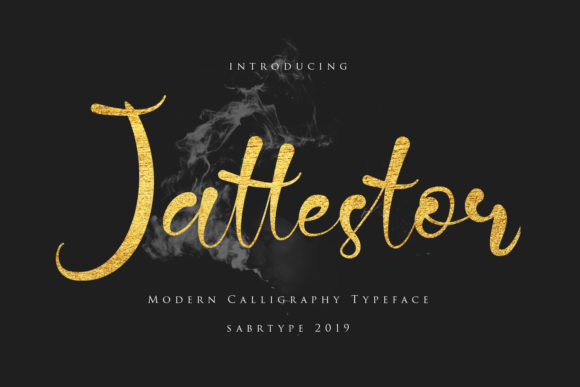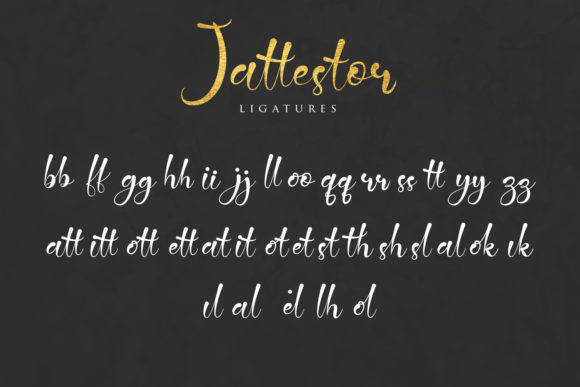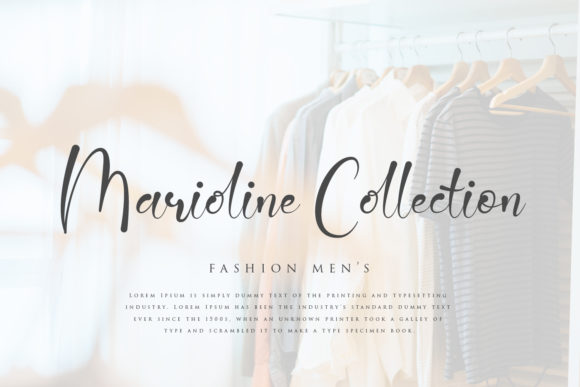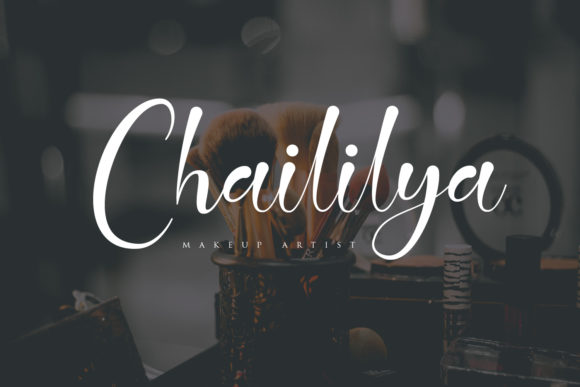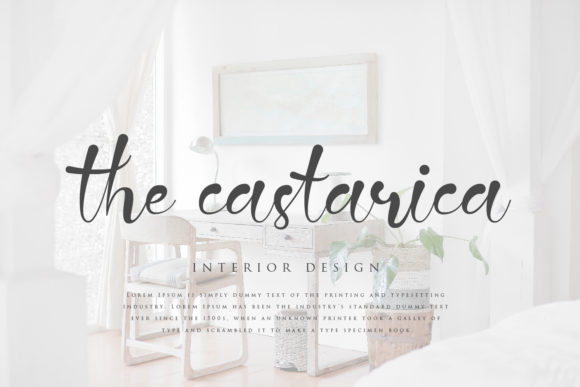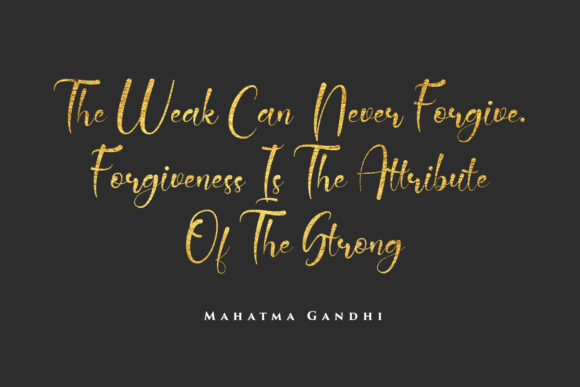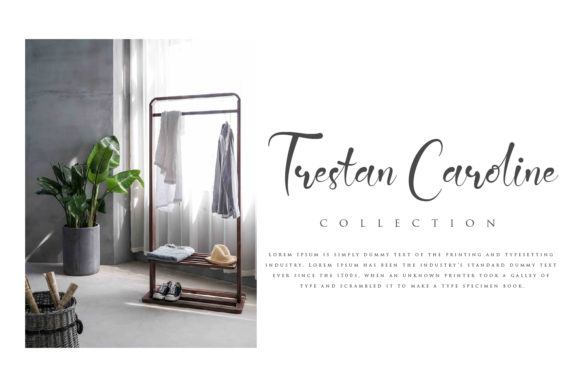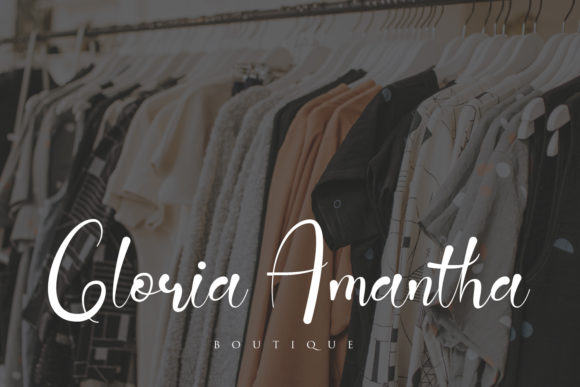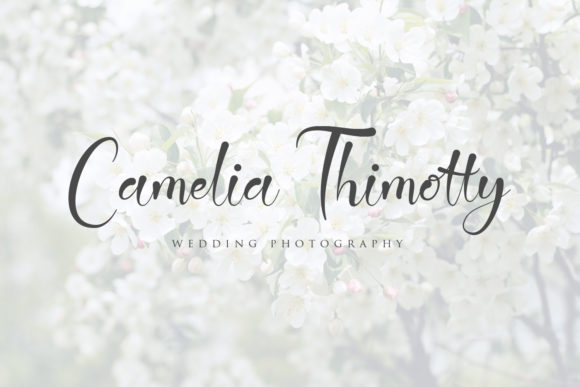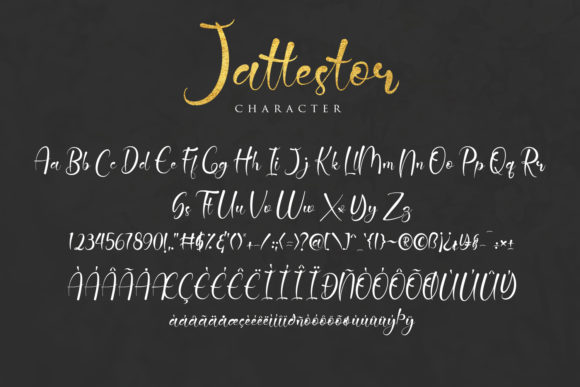
Jattestor Font
About Jattestor Font
The Jattestor is a modern calligraphy typeface. It has a simple and elegant style and is perfect for logos, branding, invitations, stationary, wedding designs, quotes, and much more!